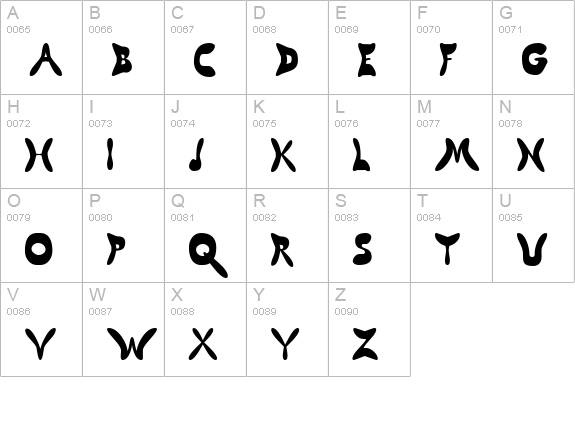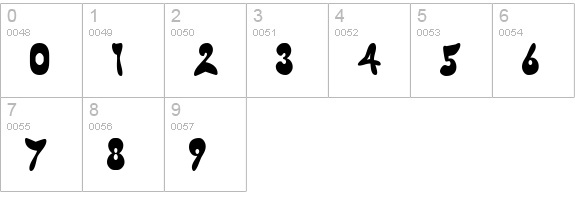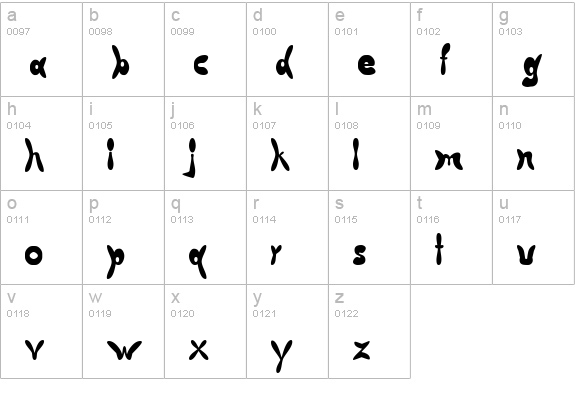
Butterfly Chromosome Font Details
Introducing Butterfly Chromosome font, a whimsical and elegant typeface that is sure to add a touch of grace and charm to your design projects. This unique font features delicate curves and intricate details inspired by the delicate wings of a butterfly, making it perfect for adding a touch of magic to any creative endeavor. Butterfly Chromosome font is a versatile typeface that can be used for a wide range of projects, from invitations and greeting cards to logos and branding. Its graceful and feminine design makes it ideal for projects that require a touch of elegance and sophistication. Best of all, Butterfly Chromosome font is completely free to download at FontsMarket.com. So go ahead and add this enchanting font to your collection today and let your creativity take flight with Butterfly Chromosome font!